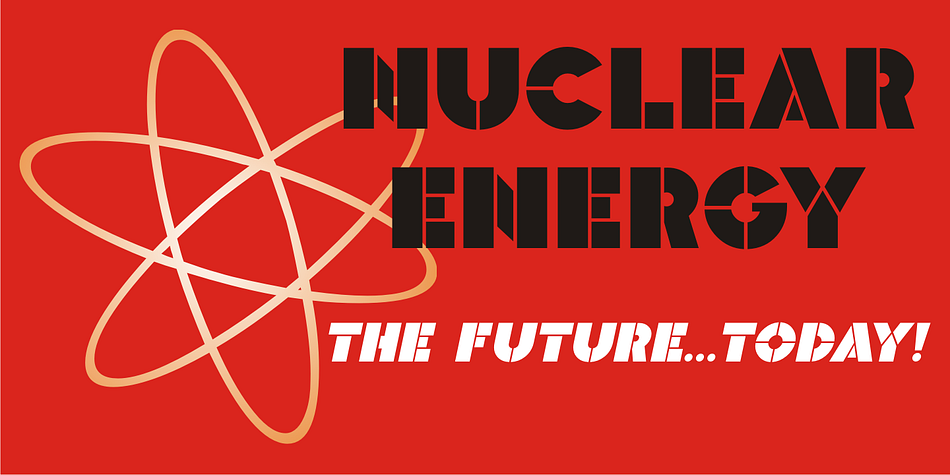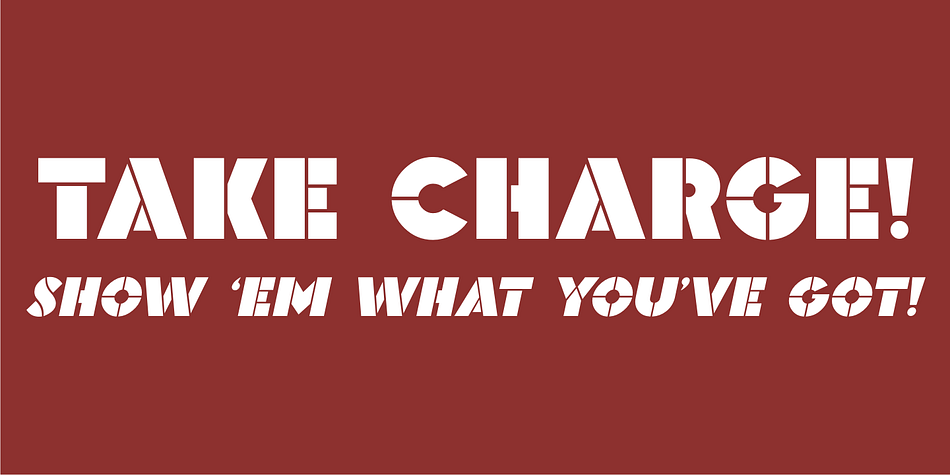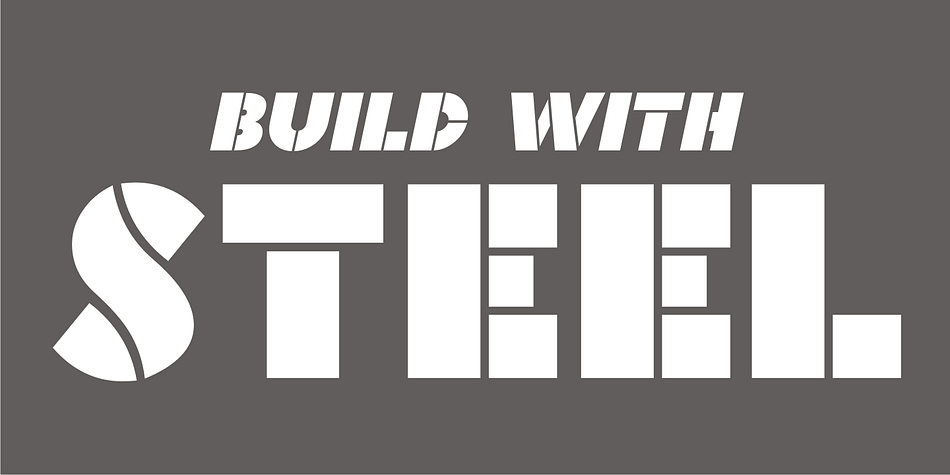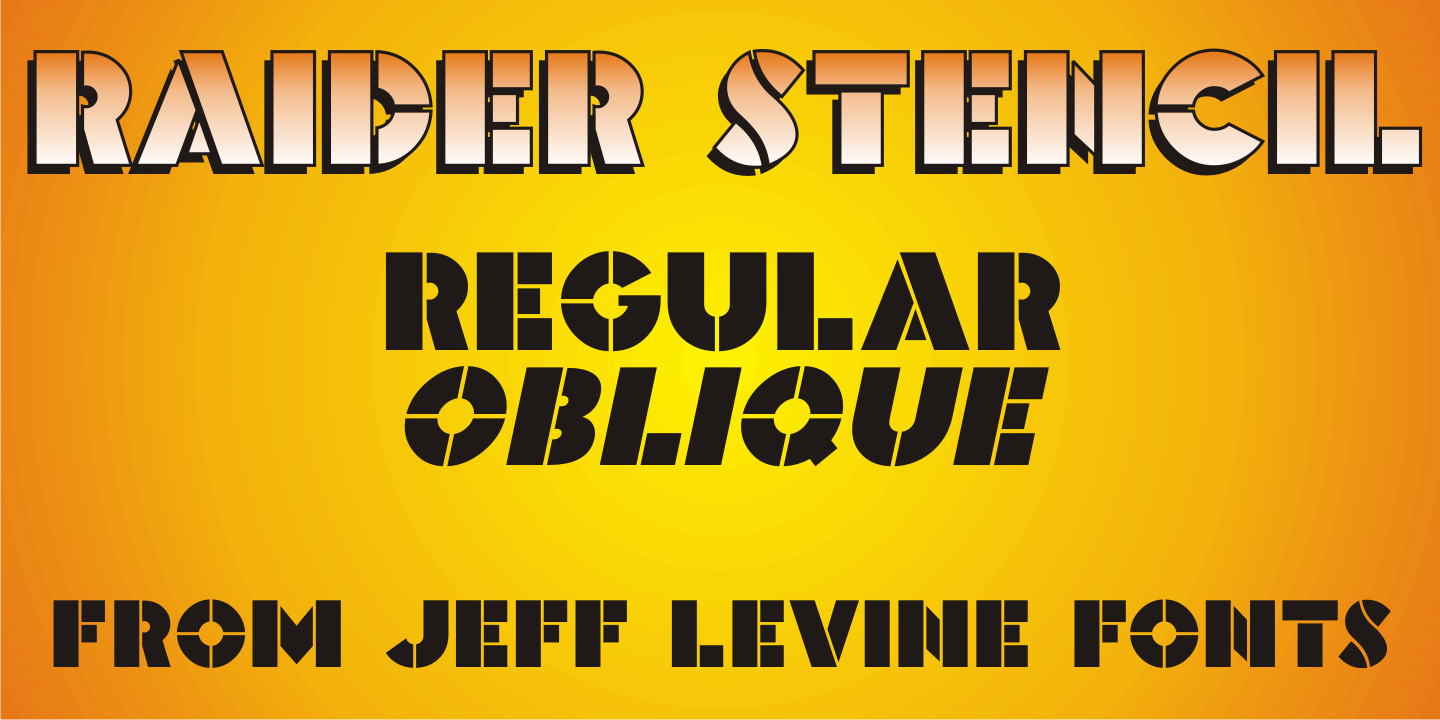
Raider Stencil JNL is a stencil font family. This typeface has two styles and was published by Jeff Levine Fonts.
The dust jacket for the 1929 Western novel “The Raider” by Charles Alden Seltzer featured the title and author’s credits in a hand-lettered extra bold stencil design. This became the model for Raider Stencil JNL.